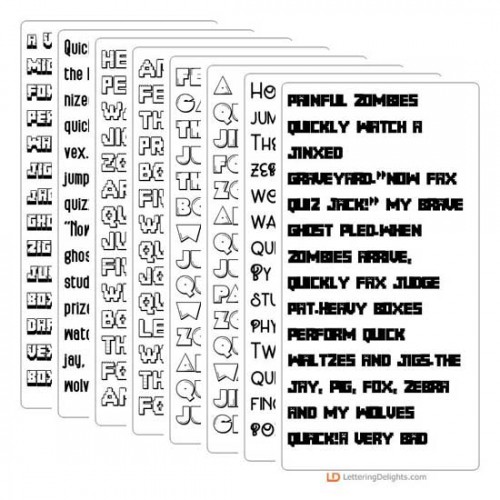
Pixel Perfect - Font Bundle
This bundle of ten different font families perfectly coordinates with the Pixel Perfect Mega Bundles.
• PN Pixelcraft - FN
• PN Pixelcraft 3D - FN
• ZP Brick Blocks - FN
• ZP Brick Blocks Print - FN
• ZP Brick Blocks Print Shadow - FN
• ZP Creperie Cafe - FN
• ZP Creperie Cafe Book - FN
• ZP Creperie Cafe Bold - FN
• ZP Brick Blocks 3D - FN
• ZP Brick Print 3D - FN
• PN Ms Pog Champ - FN
• PN Pixelcraft Spot - FN
• ZP Parsonage - FN
• ZP Parsonage Bold - FN
• PN Bunburger - FN
• PN Bunburger Bold - FN
• PN Monkey Bone Bold - FN
• PN Monkey Bone - FN
• PN Radiograph Bold - FN
• PN Radiograph - FN
PN Pixelcraft - FN
This blocky rock-looking, pixel-inspired font has cracks in the uppercase and is without cracks in t..
PN Pixelcraft 3D - FN
This blocky rock-looking, pixel-inspired 3D font has an uppercase that tilts back. The lower case is..
ZP Brick Blocks - FN
This font looks like it was made out of builidng blocks. The uppercase has little gaps to make it lo..
ZP Brick Blocks Print - FN
This font looks like a popular logo for building blocks.There is both the outline and solid letters ..
ZP Brick Blocks Print Shadow - FN
This shadow version of ZP Brick Blocks Print adds a perfect shadow layer to your Brick Block Print...
ZP Creperie Cafe - FN
This simple sans serif is widely spaced for a modern look...
ZP Creperie Cafe Book - FN
This simple sans serif is widely spaced for a modern look...
ZP Creperie Cafe Bold - FN
This hand-crafted sans serif is a bit squat...
ZP Brick Blocks 3D - FN
This 3d font features lettering that looks like it was made out of interlocking building blocks...
ZP Brick Print 3D - FN
This hand-crafted sans serif print is all uppercase but with an lowercase with a double outline and ..
PN Ms Pog Champ - FN
This video-game styled font has a bit of a shadow..
PN Pixelcraft Spot - FN
This pixel font has little missing pixels throughout...
ZP Parsonage - FN
This hand-crafted, sans serif is all uppercase with a shorter lowercase...
ZP Parsonage Bold - FN
This hand-crafted, sans serif is all uppercase with a shorter lowercase...
PN Bunburger - FN
This upright, cursive script is a fun cursive with cute loopy lettering..
PN Bunburger  Bold - FN
PN Bunburger Bold - FN
This upright, cursive script is a fun cursive with cute loopy lettering..
PN Monkey Bone Bold - FN
This adorable script has a very youthful look and bouncy baseline...
PN Monkey Bone - FN
This adorable script has a very youthful look and bouncy baseline...
PN Radiograph Bold - FN
This hand-written script is a pretty, hand-written cursive...
PN Radiograph - FN
This hand-written script is a pretty, hand-written cursive...